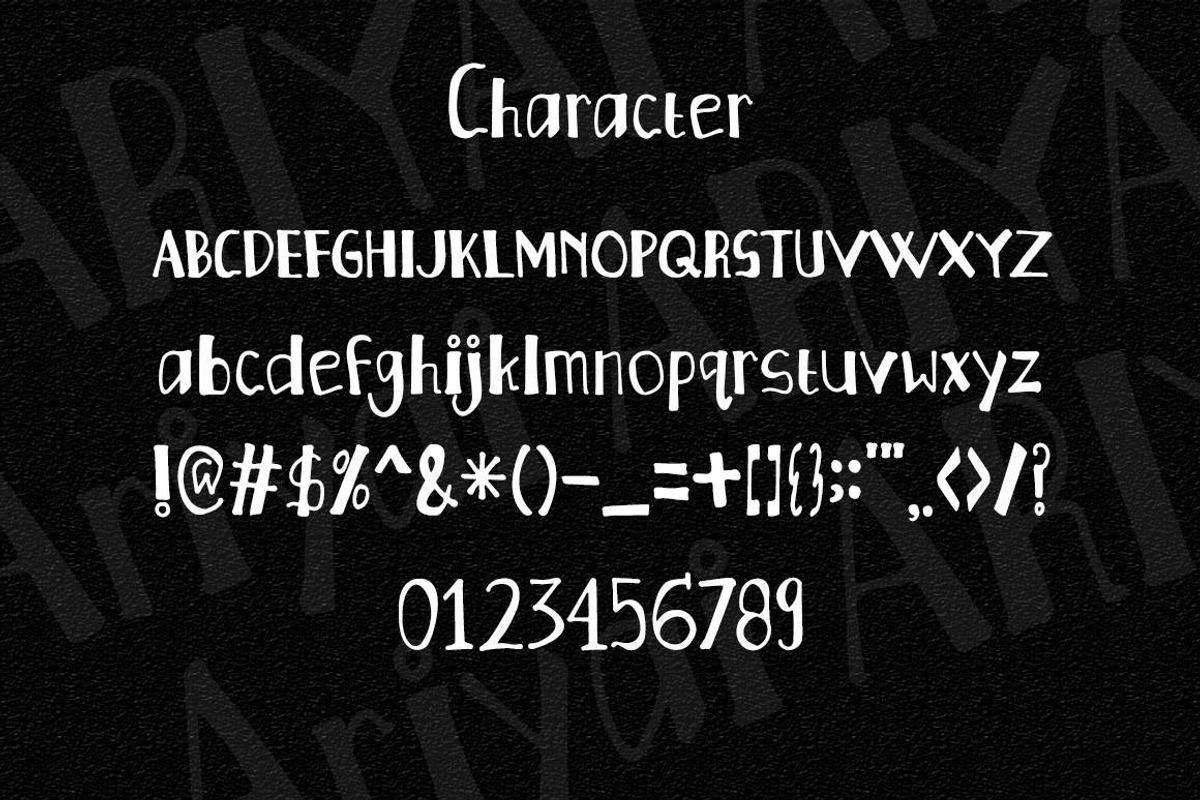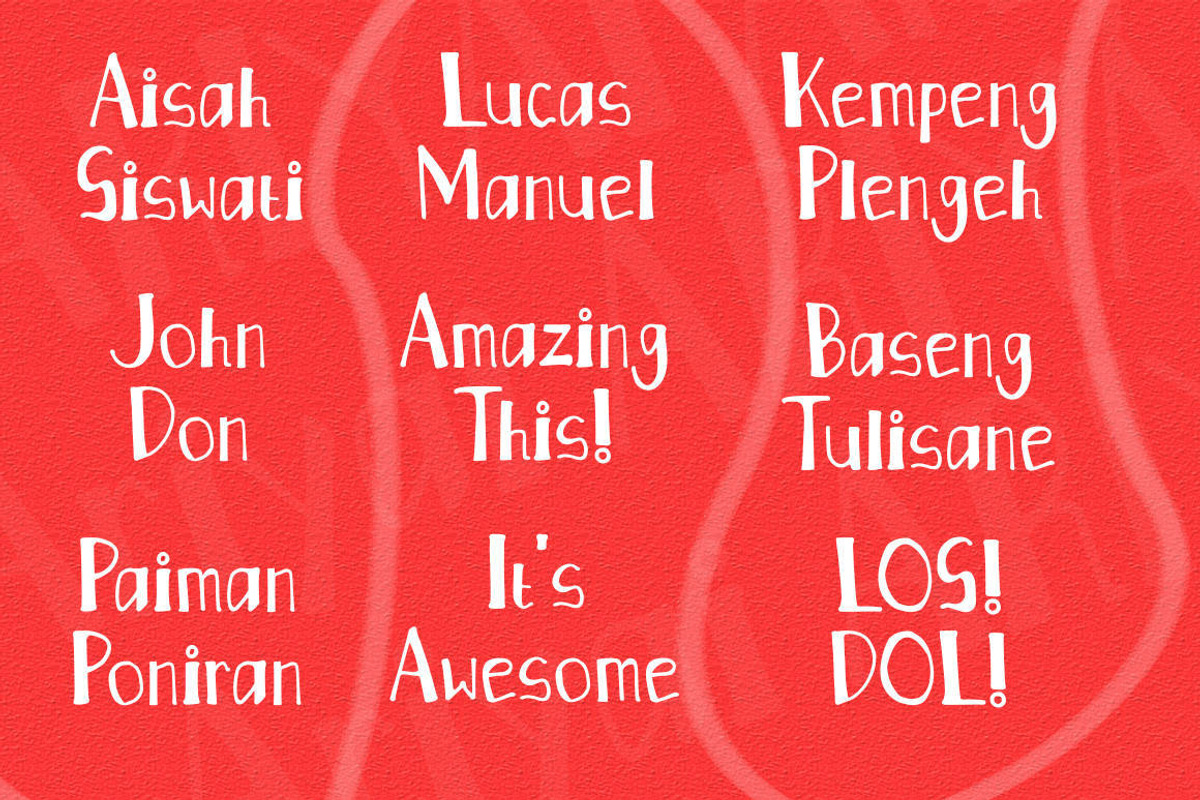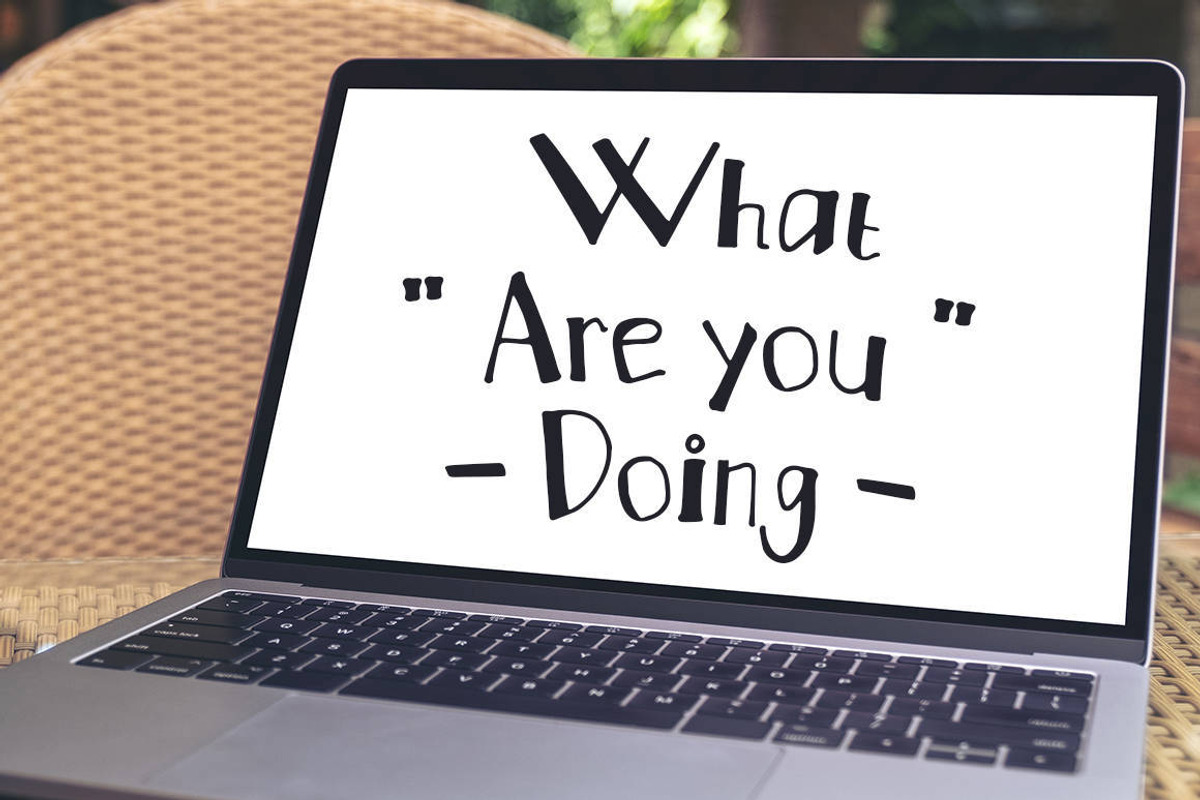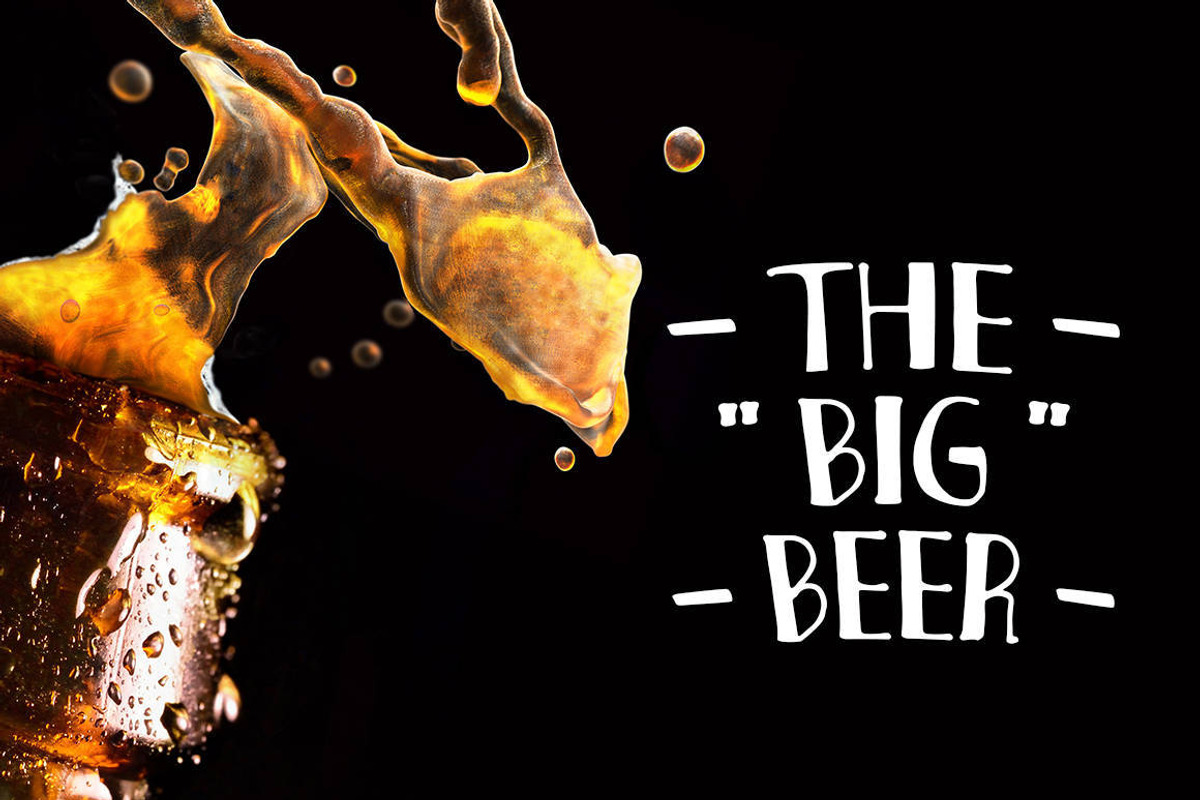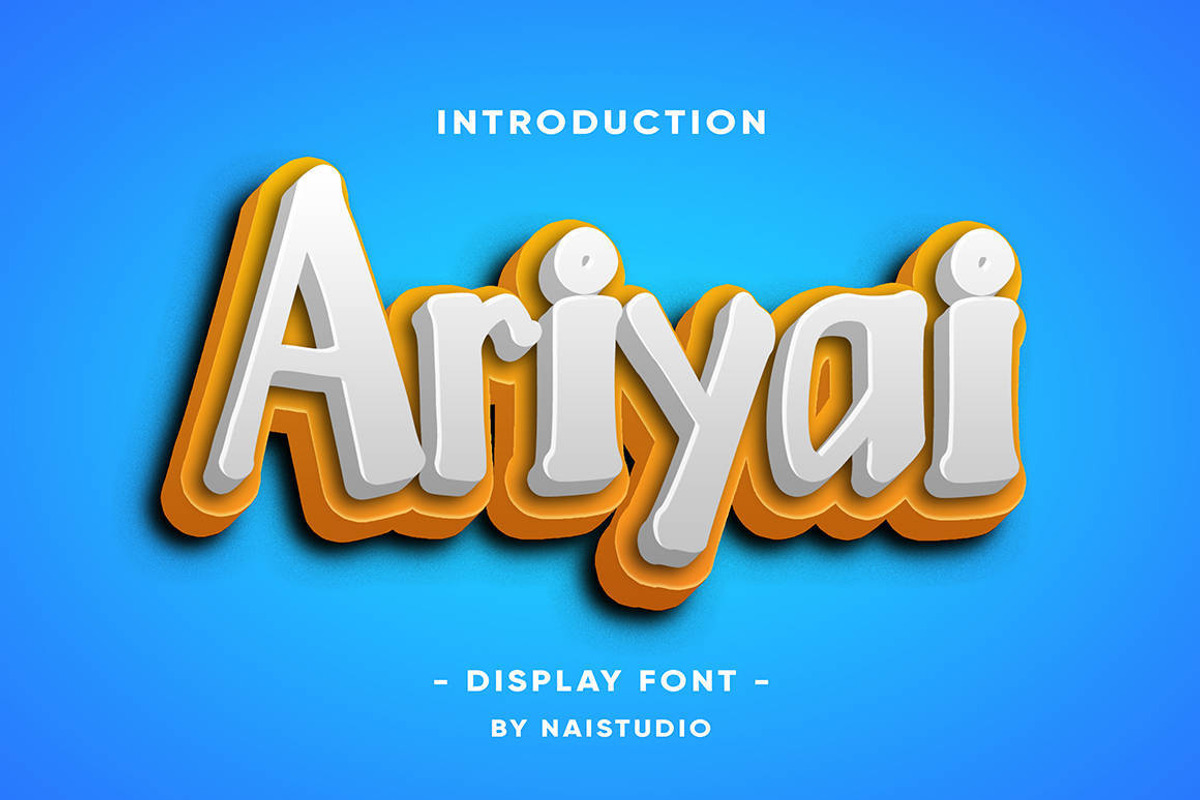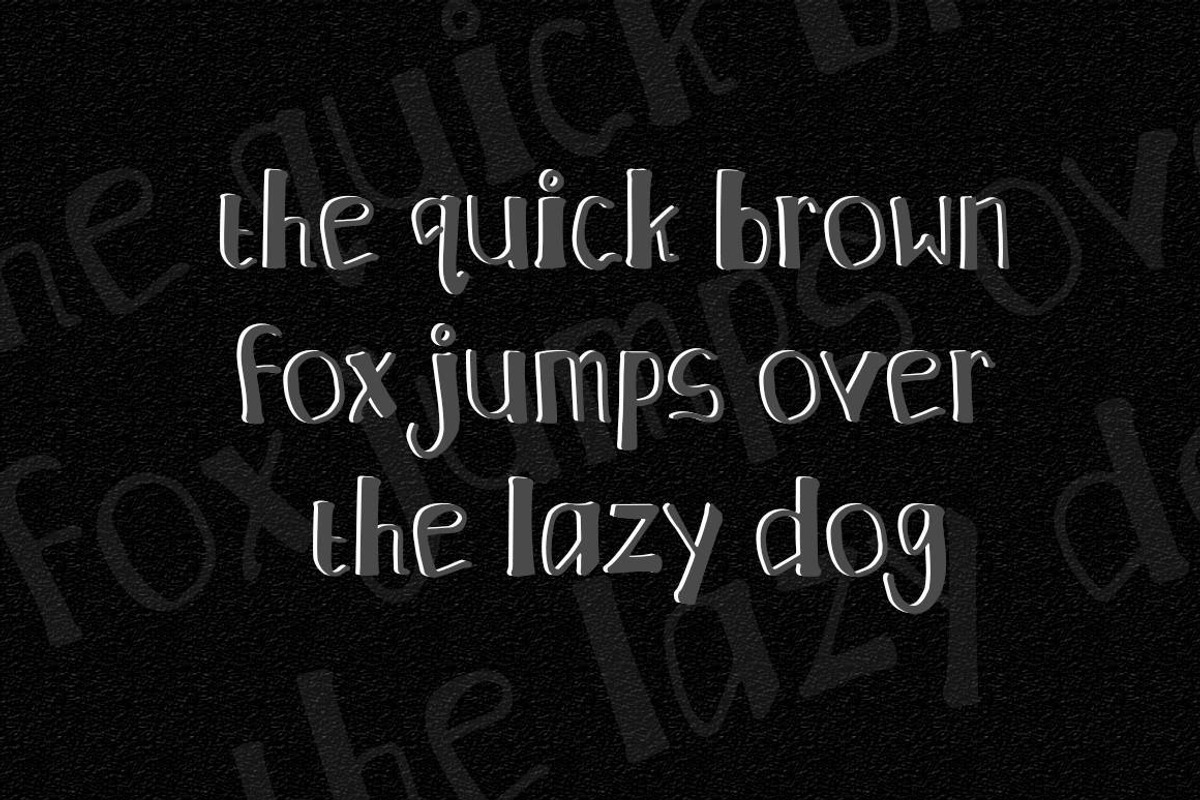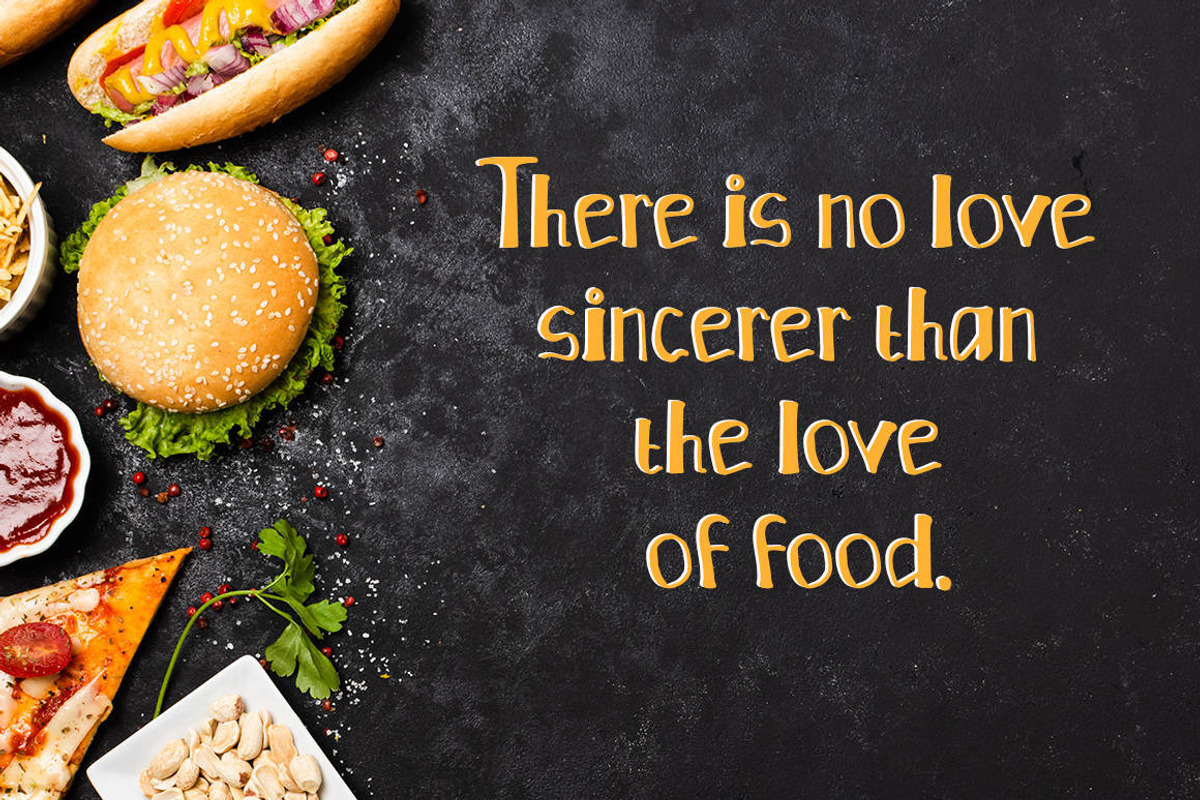
Ariyai - Clean Display Font
Introducing Ariyai - Clean Display Font
Ariyai is a delicate, elegant and flowing handwritten font. It has beautiful and well balanced characters and as a result, it matches a wide pool of designs. Add it to your most creative ideas and notice how it makes them come alive!